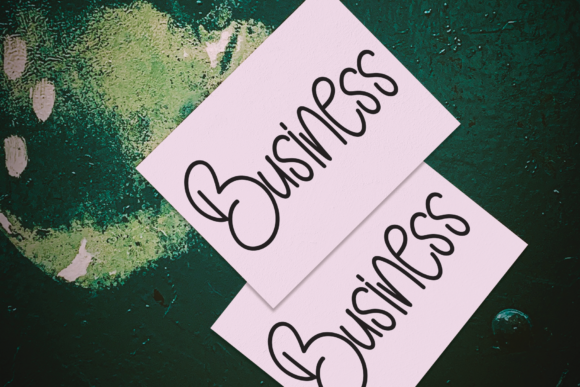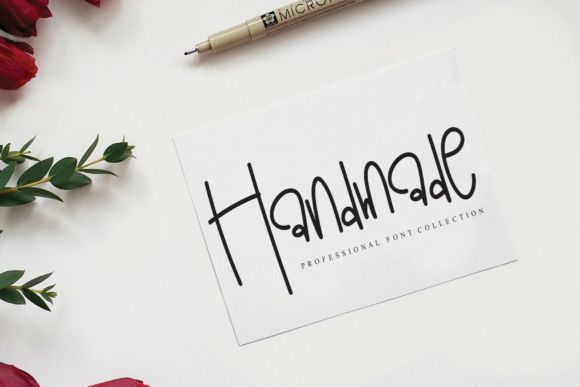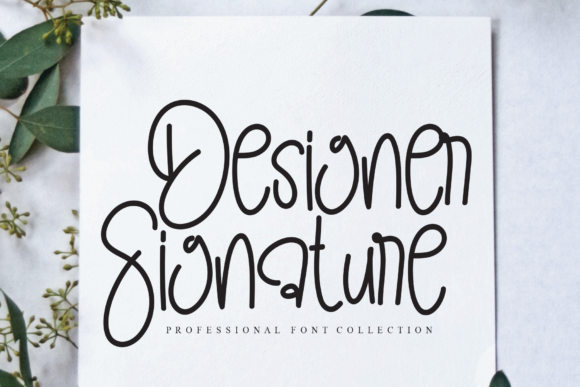
Introduction to Handwriting Minimalist Font
Handwriting Minimalist is a cute and quirky lettered handwritten font that can be used for all chalkboard quotes or teaching material.
Its authentic look will add a personal and realistic feel to your designs .